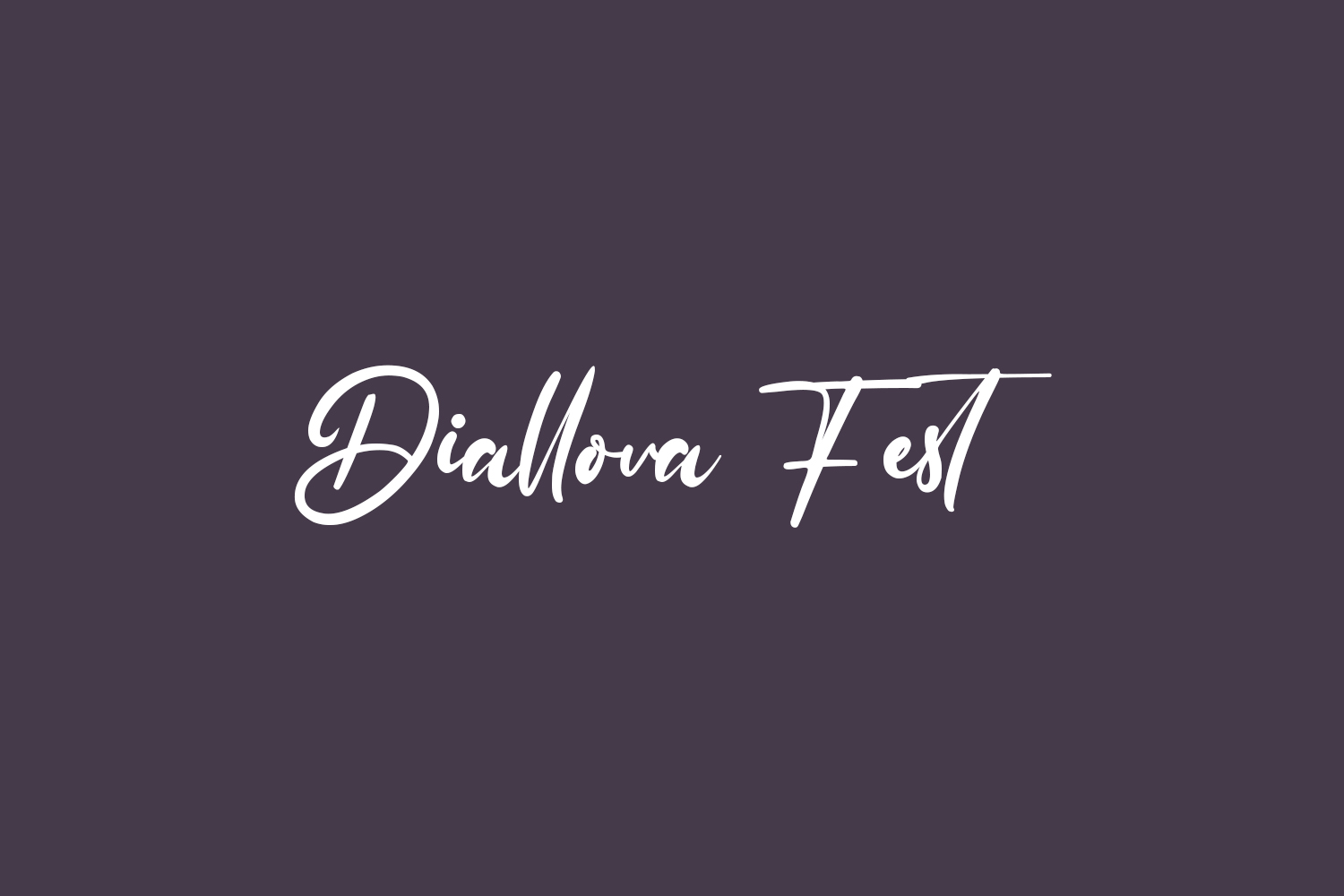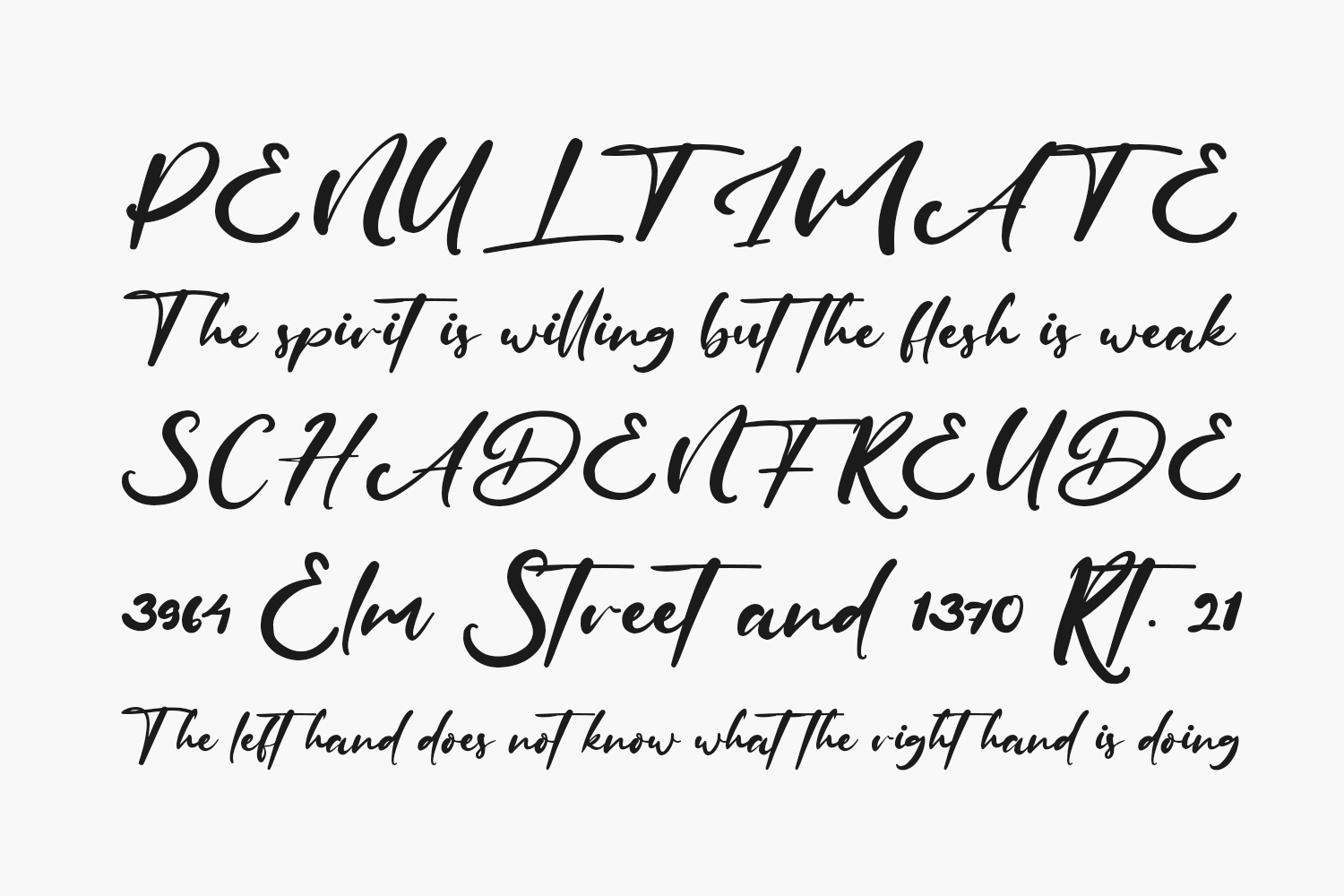
Diallova Fest Free Font is a modern script typeface, suitable for logotype, branding design, logo design, digital lettering arts, t-shirt/apparel, poster, magazine, signs, advertising design, and any design needs. Diallova Fest Free Font was designed by Staircase Studio and is free for personal use only. Please purchase the full version for commercial use.